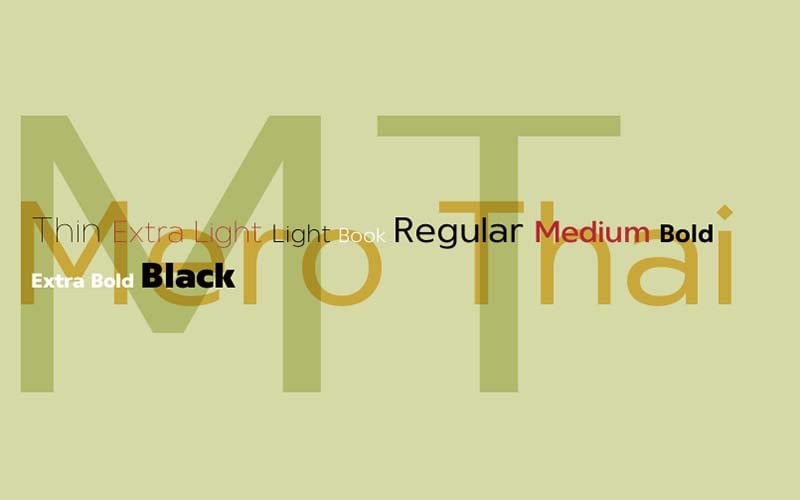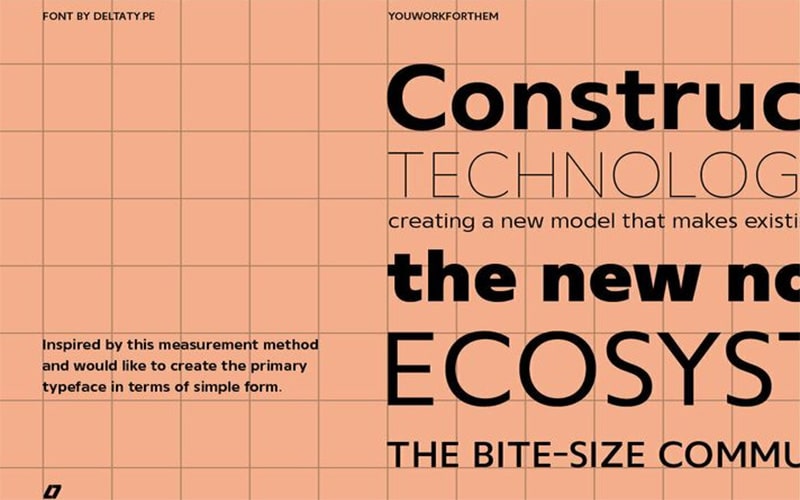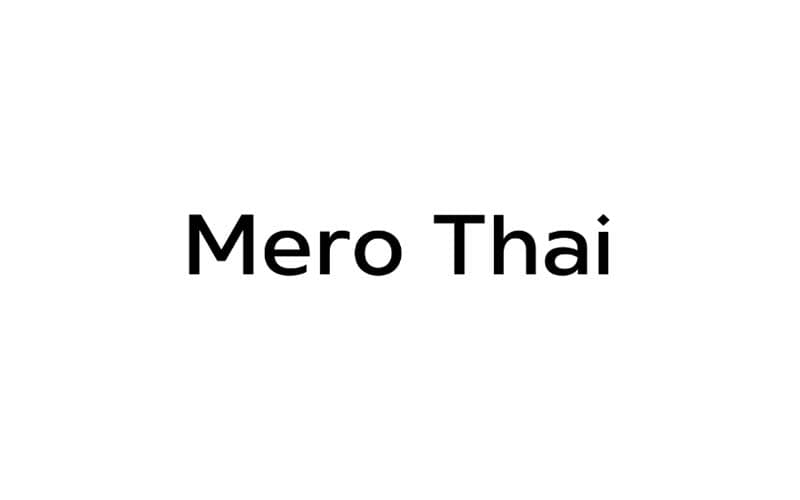
Mero Thai font is an elegant display and sans-serif typeface. This stunning font was designed by the two designers Kwanchai Akkaratammagul, and Phatcharaphat Chatthawatthanathon and published by Deltatype.
He designed this font to give an amazing look to your projects. It was designed by May 7, 2020. The subfamily of this font is regular and contains 9 different styles Regular, Light, Medium, Bold, Extra Bold, and so on.
This typeface supported more than 30 languages such as Afrikaans, Breton, Danish, Dutch, English, Finnish, French, German, Indonesian, Irish, Italian, Norwegian, Spanish, Swahili, and so on.
A lovely texture-free version font is available in all lowercase, uppercase, and capital letters, as well as 58 unique characters. Let’s look at the texture for a moment.
Mero Thai Font
| Font Name: | Mero Thai Font |
| Style: | Display, Sans-serif, Typeface |
| Font Designer: | Kwanchai Akkaratammagul, and Phatcharaphat Chatthawatthanathon |